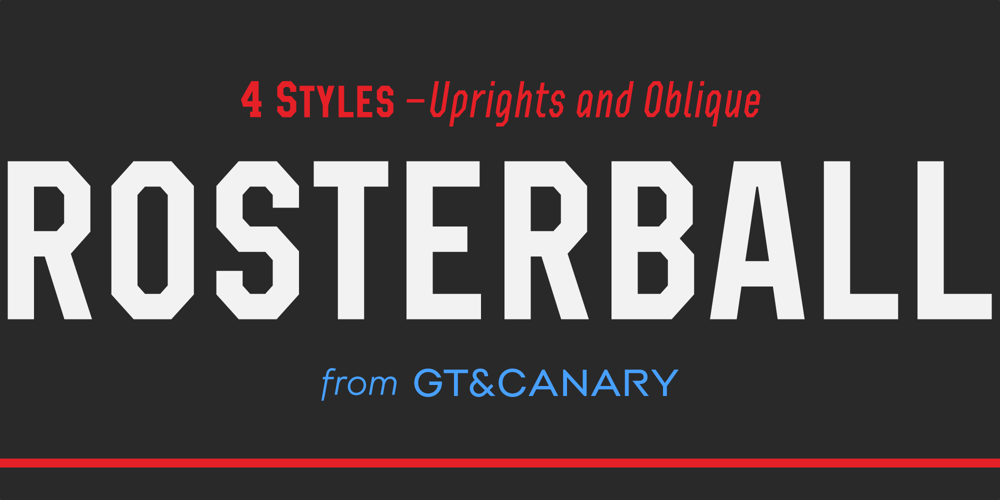
Rosterball Font Family was designed by Takaaki Goto and published by GT&CANARY. Rosterball contains 4 styles and family package options. Rosterball font draws inspiration from classic collegiate sports graphics, blending sophistication with readability. Its carefully crafted shapes are ideal for numbers and uniform markings. With both lowercase and small caps available, it offers a wide range of adaptability. Bright and authoritative, Rosterball enables strong, expressive design.